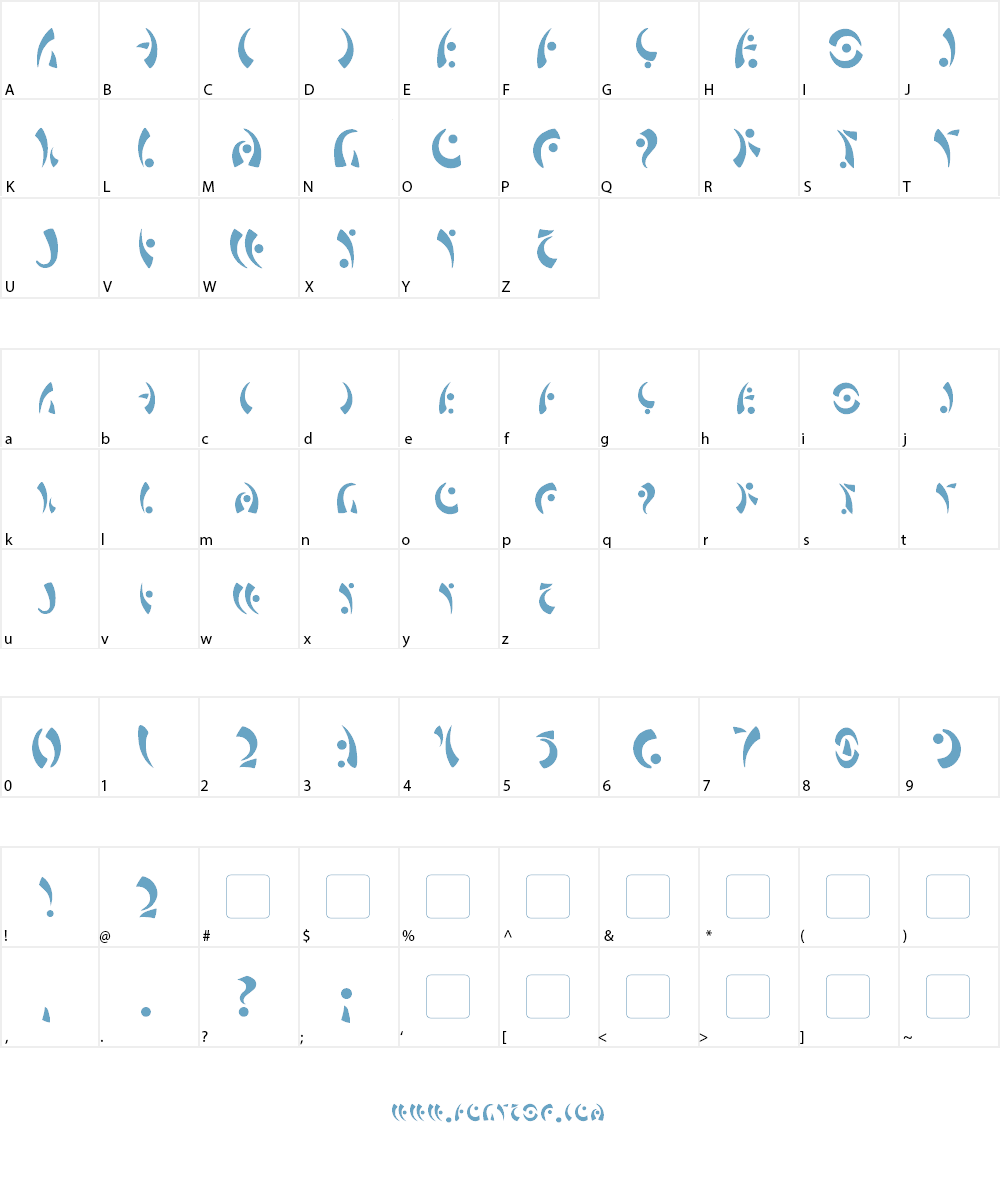
Mara’s Eye is an almost-readable (meaning that the letters are actually distorted English) puzzle-language based on the glyphs found at Disneyland’s Indiana Jones ride. Includes all canon characters based on the ride, along with fandom-created numbers and punctuation.